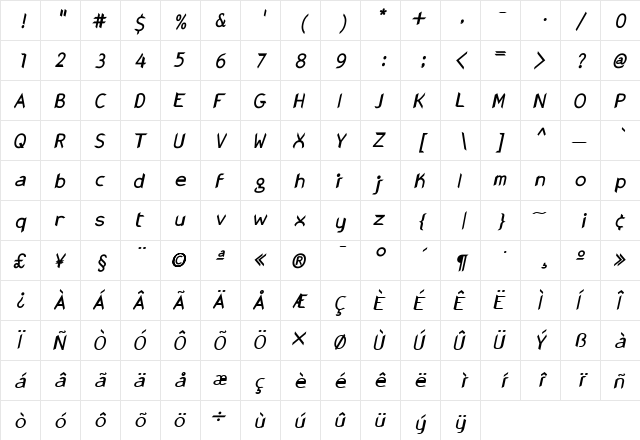
Gonza Bold Italic
Design Context for Gonza Typeface
Gonza offers clean, dependable letterforms without strong stylistic allegiance, making it a practical choice for designers who need flexibility. The slanted form adds forward momentum and visual energy. The heavy weight commands attention and anchors typographic hierarchies.